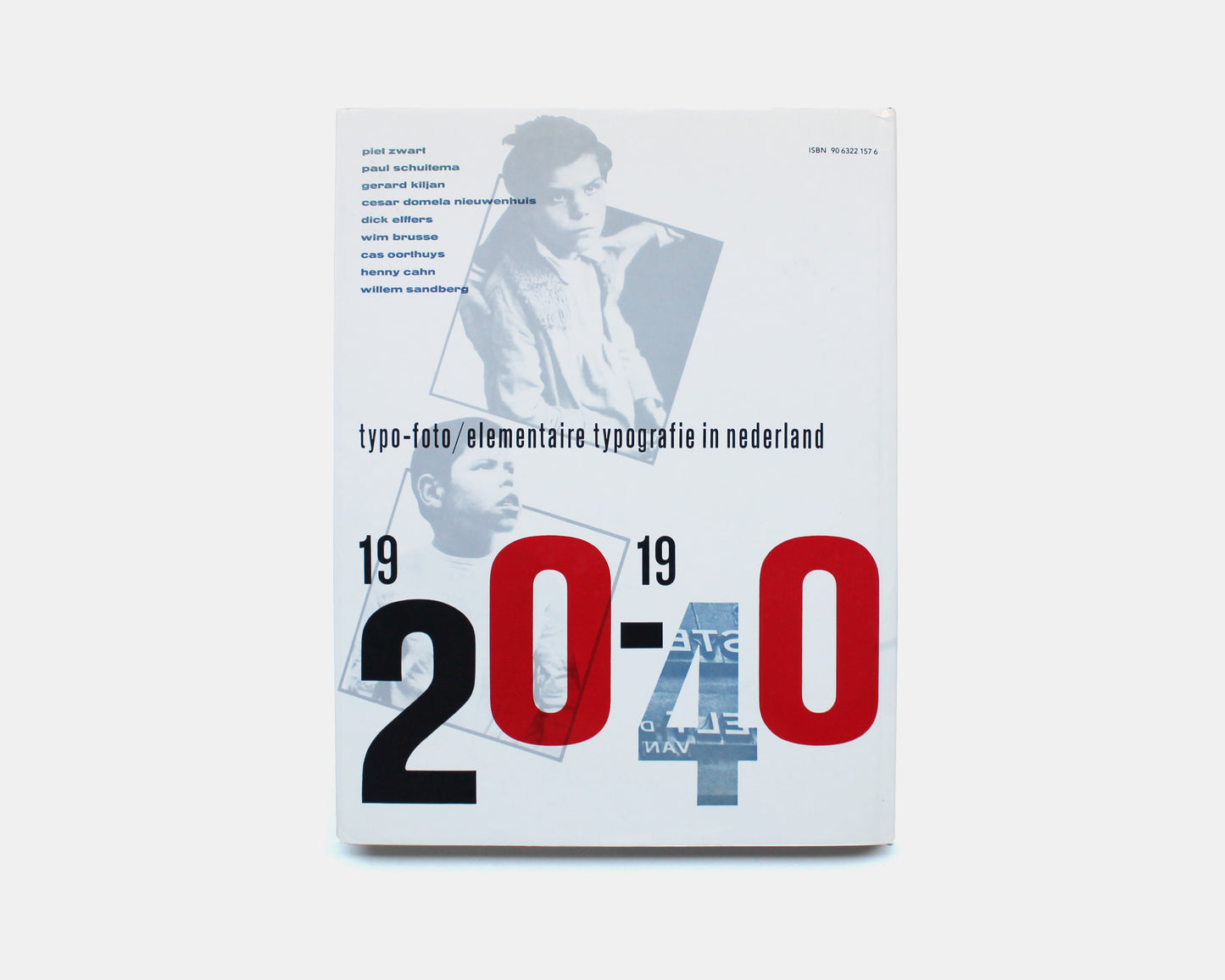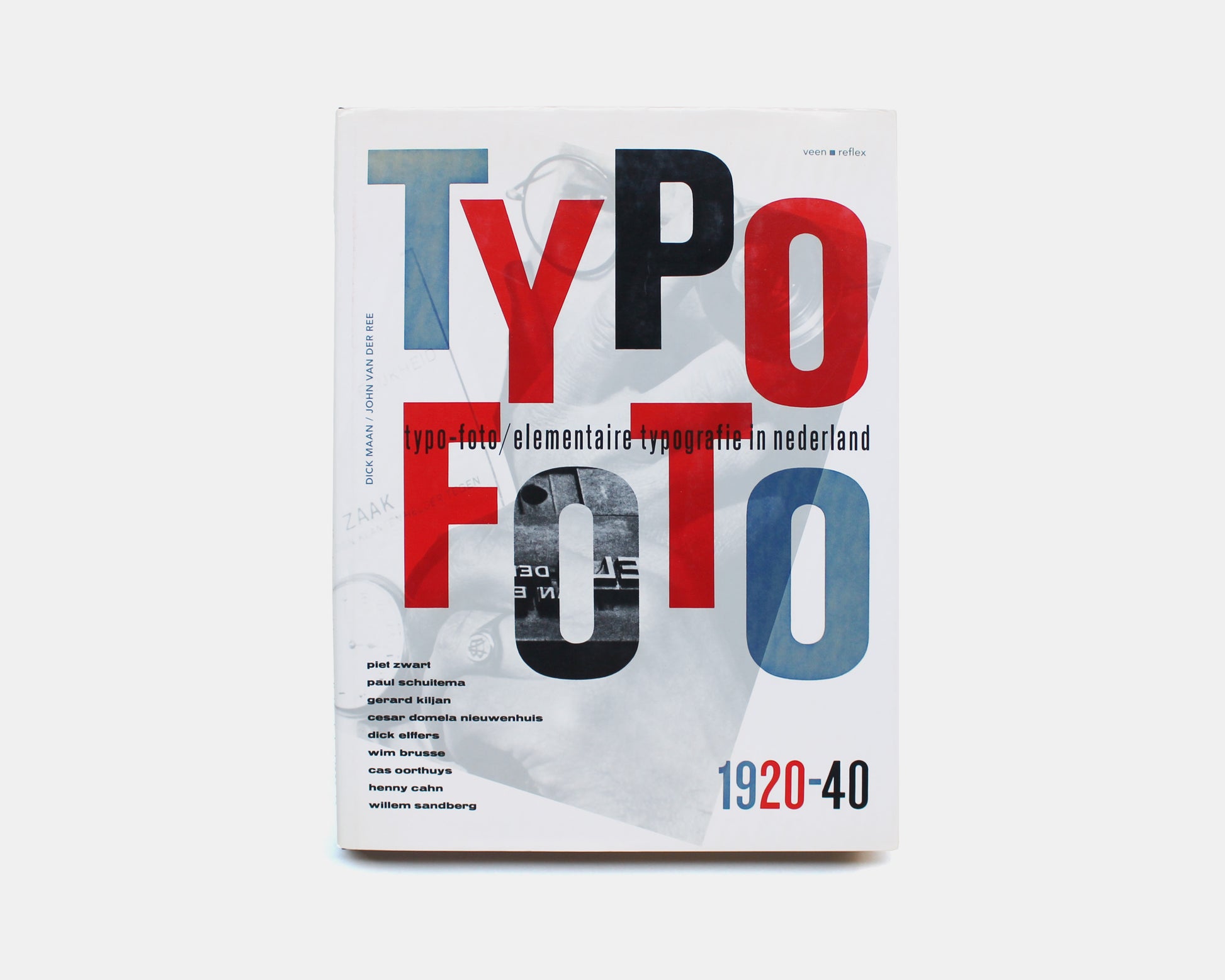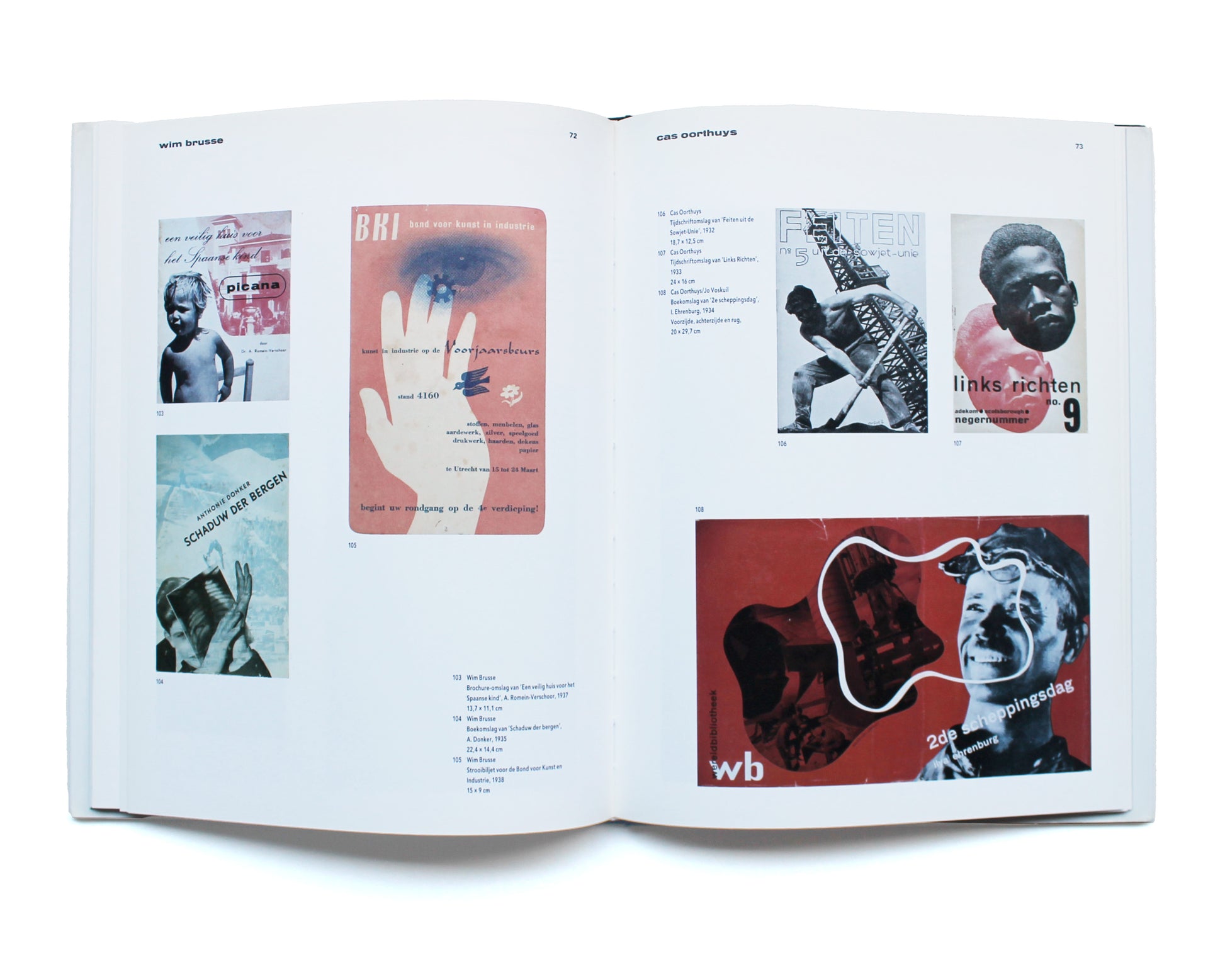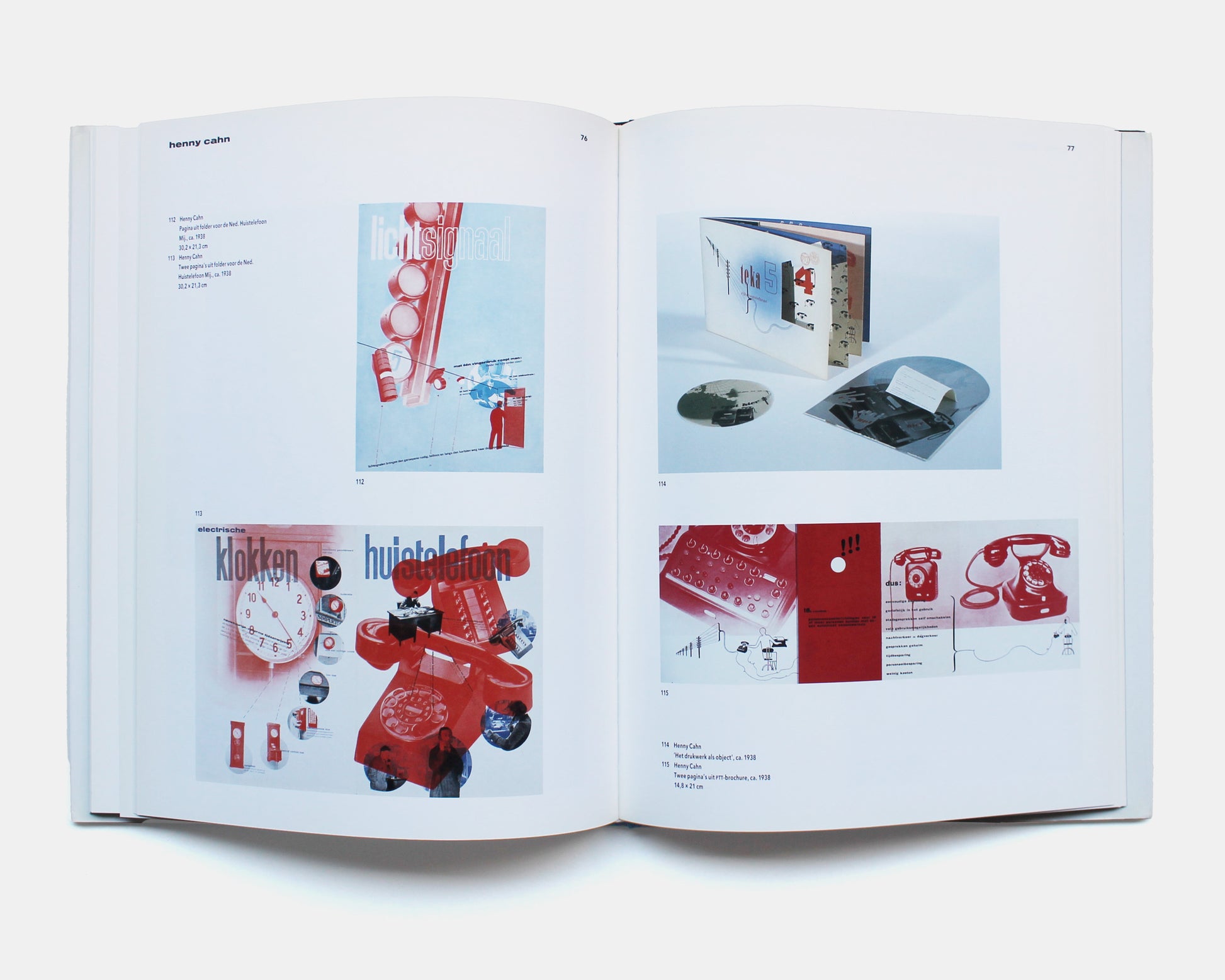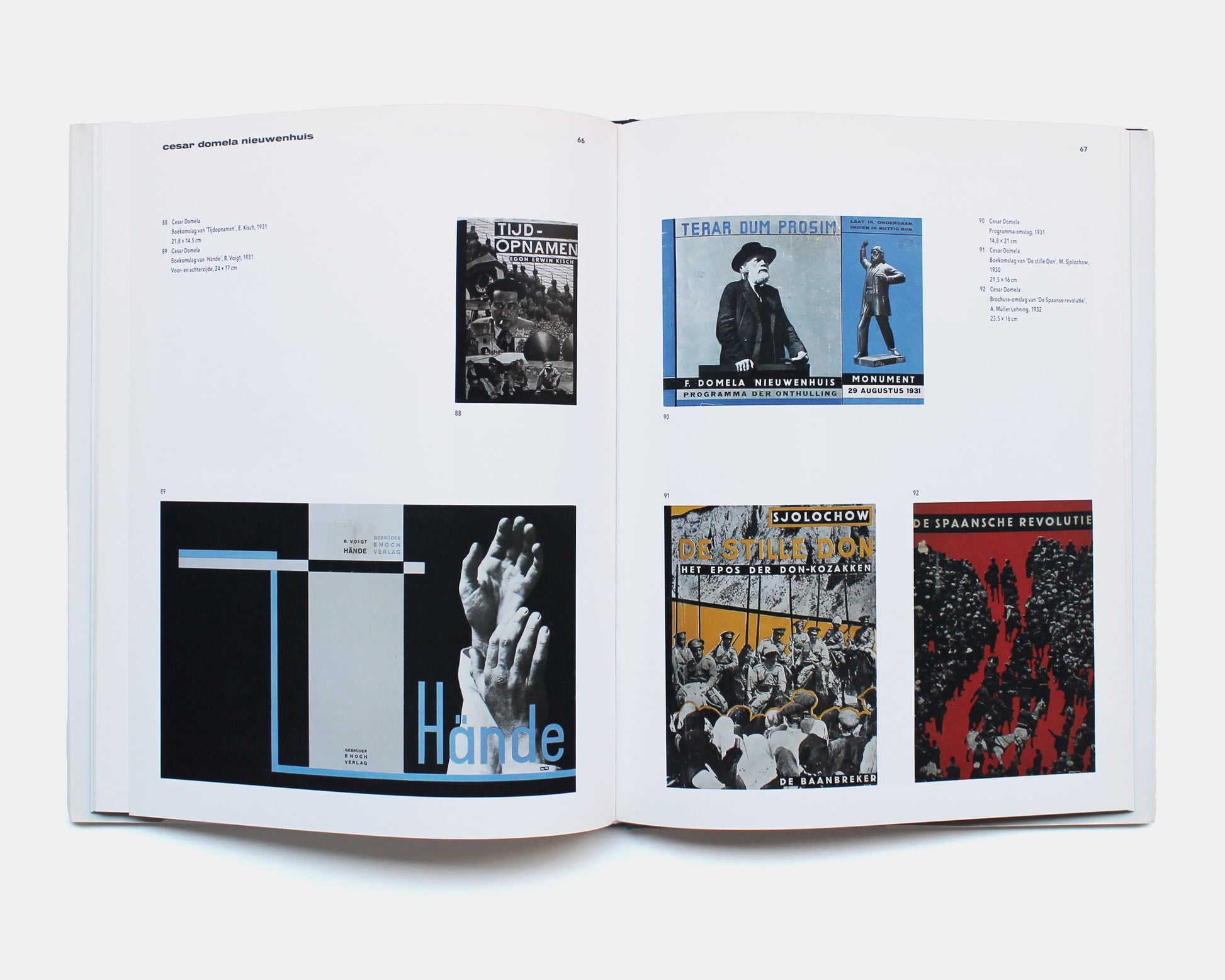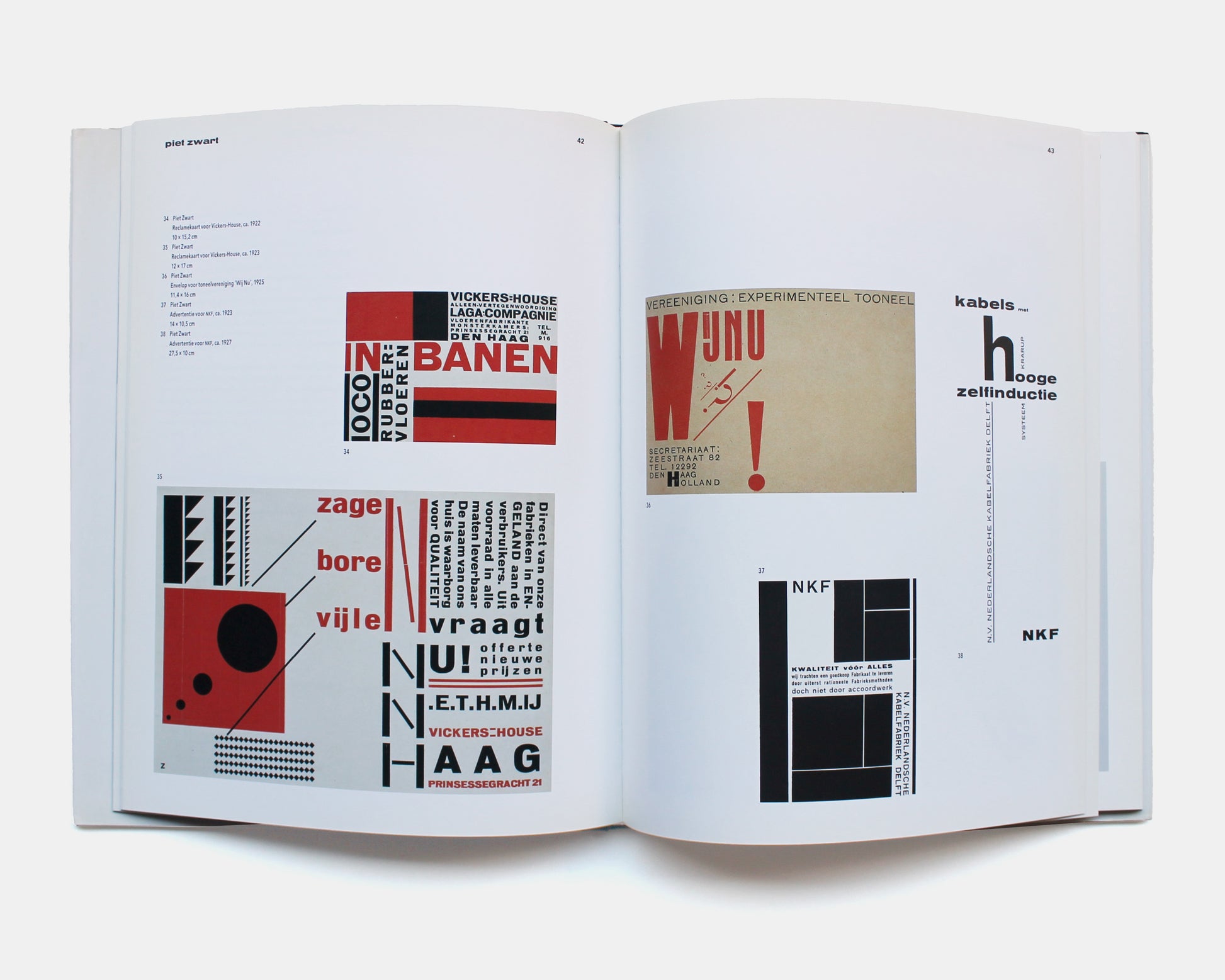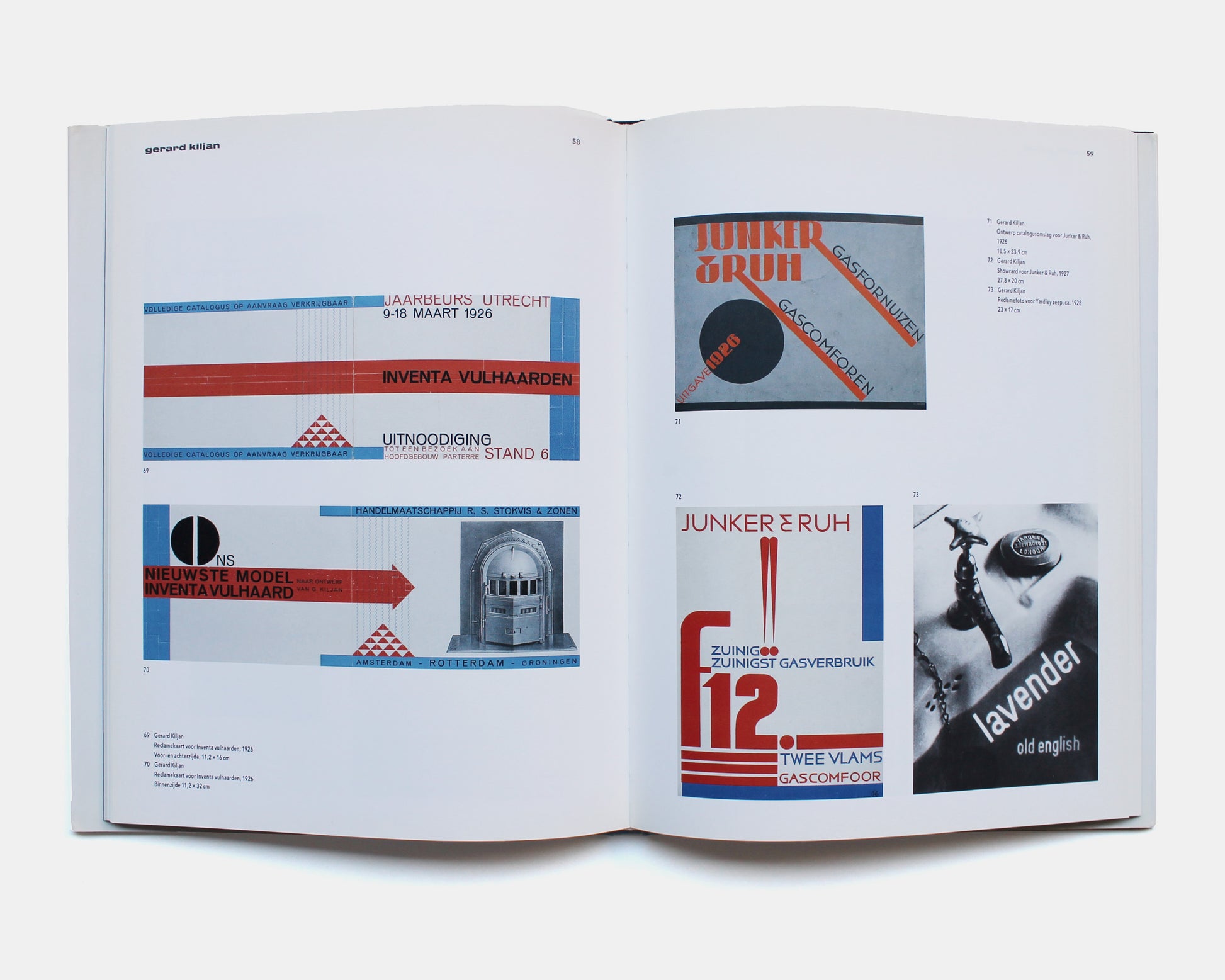
Typo-foto: Elementaire Typografie in Nederland 1920–1940
Typo-foto: Elementaire Typografie in Nederland 1920–1940 by Dick Maan and John van der Ree, 1990. Veen/Reflex, Utrecht/Antwerpen. 8.75 x 11.75, pp. 112 with Dutch text.
Heavily illustrated with 135 color and black and white examples including a foreword and preface with individual sections devoted to nine design pioneers: Piet Zwart, Paul Schuitema, Gerard Kiljan, Cesar Domela Nieuwenhuis, Dick Elffers, Wim Brusse, Cas Oorthuys, Henny Cahn and Willem Sandberg.
With an important reprinted text regarding photography in advertising: “foto als beeldend element in reclame” by Kiljan and Schiuitema; an 8-page facsimile of the the special graphics issue De 8 en Opbouw (June 24, 1939) including several facsimile responses to the text. The book finishes with a conclusion, notes, designer timelines and a bibliography.